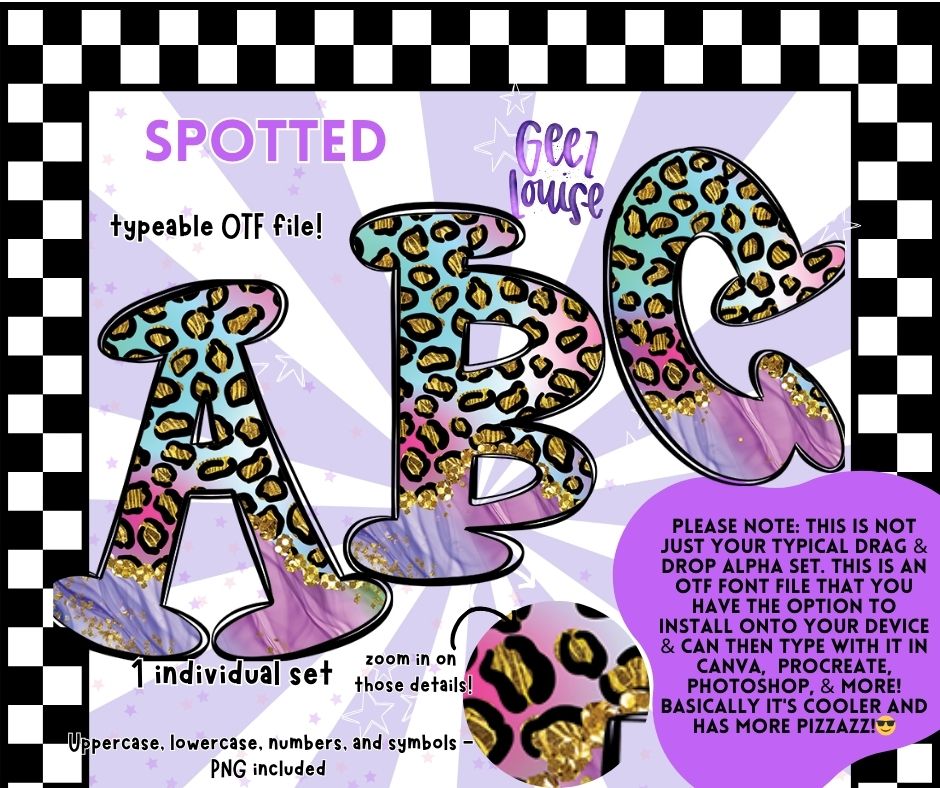
💋 Go wild with Spotted — a bold and glittery leopard print alpha set that brings serious attitude and flair! This isn’t your average drag-and-drop alphabet set. This is a fully functional typeable OTF font that you can install on your device and use in Canva, Procreate, Photoshop, Illustrator, Cricut Design Space, and more!
Each letter is dripping with vibrant colors, sparkly glam, and fierce leopard spots—because basic just isn’t your vibe.
Whether you're designing tees, tumblers, logos, or social media graphics, Spotted brings the pizzazz your projects are missing.